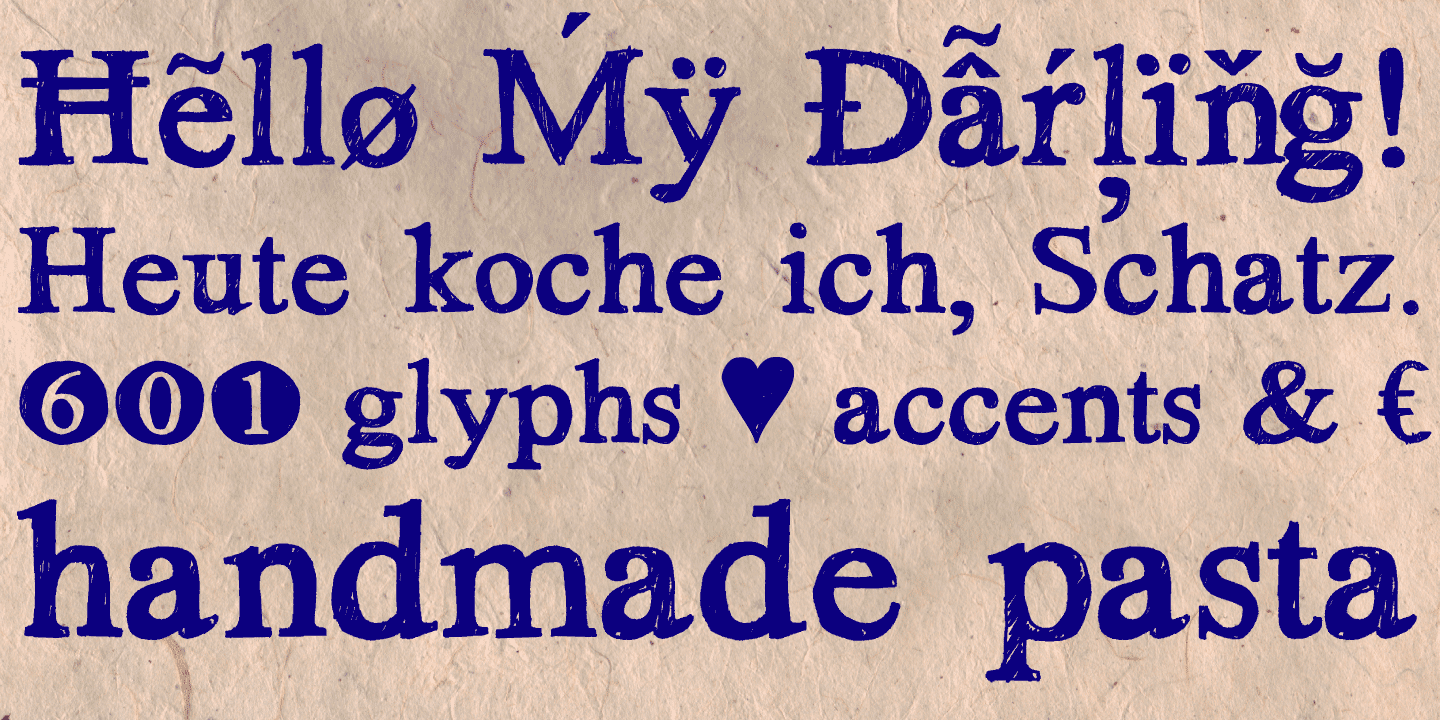
This spontaneous typeface excels in various creative applications including artist sketchbooks, creative brainstorming materials, architect's concept drawings, designer's rough drafts, children's activity books, casual note-taking apps, artistic journal covers, and hand-drawn animation titles. The Hand Scribble Sketch Times Font captures the raw energy of creative ideation with its authentically sketchy letterforms that look freshly scribbled during moments of inspired thinking.
What makes this font truly exciting is its perfect imperfection that transforms digital text into genuinely human moments of creative expression, complete with the charming inconsistencies of rapid sketching. The energetically drawn letters feature varying line weights, organic wobbles, and crosshatched textures that make every word feel like it was captured mid-thought. Its distinctive personality combines artistic spontaneity with surprising legibility, creating typography that celebrates the beautiful messiness of the creative process.
The Hand Scribble Sketch Times Font family includes creatively-charged variations: Light Sketch, Regular, Heavy Scribble, and Extra Rough styles, plus alternate characters with different sketch qualities. Each family member maintains the signature hand-drawn character while providing flexibility for creating designs that range from quickly sketched to intensely scribbled.